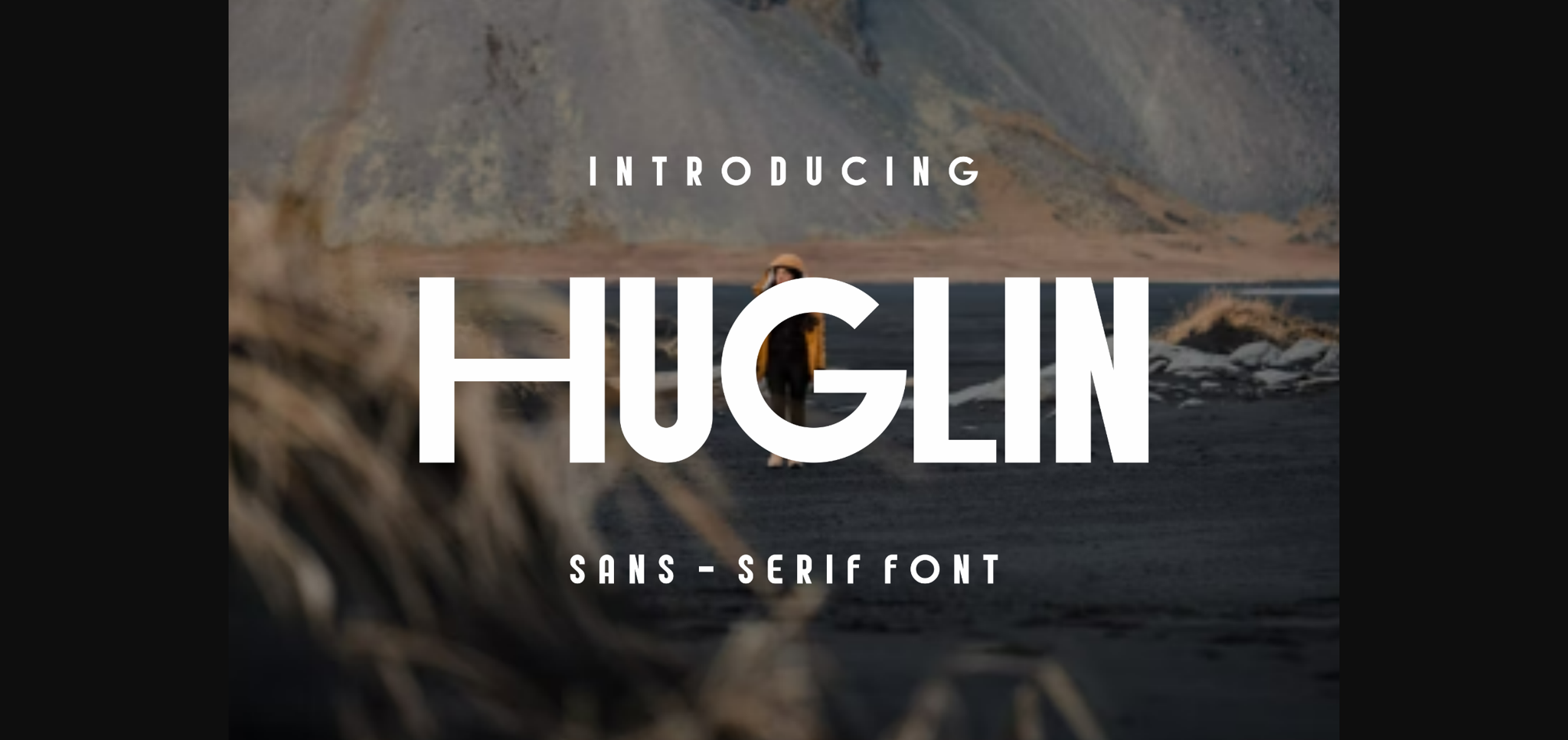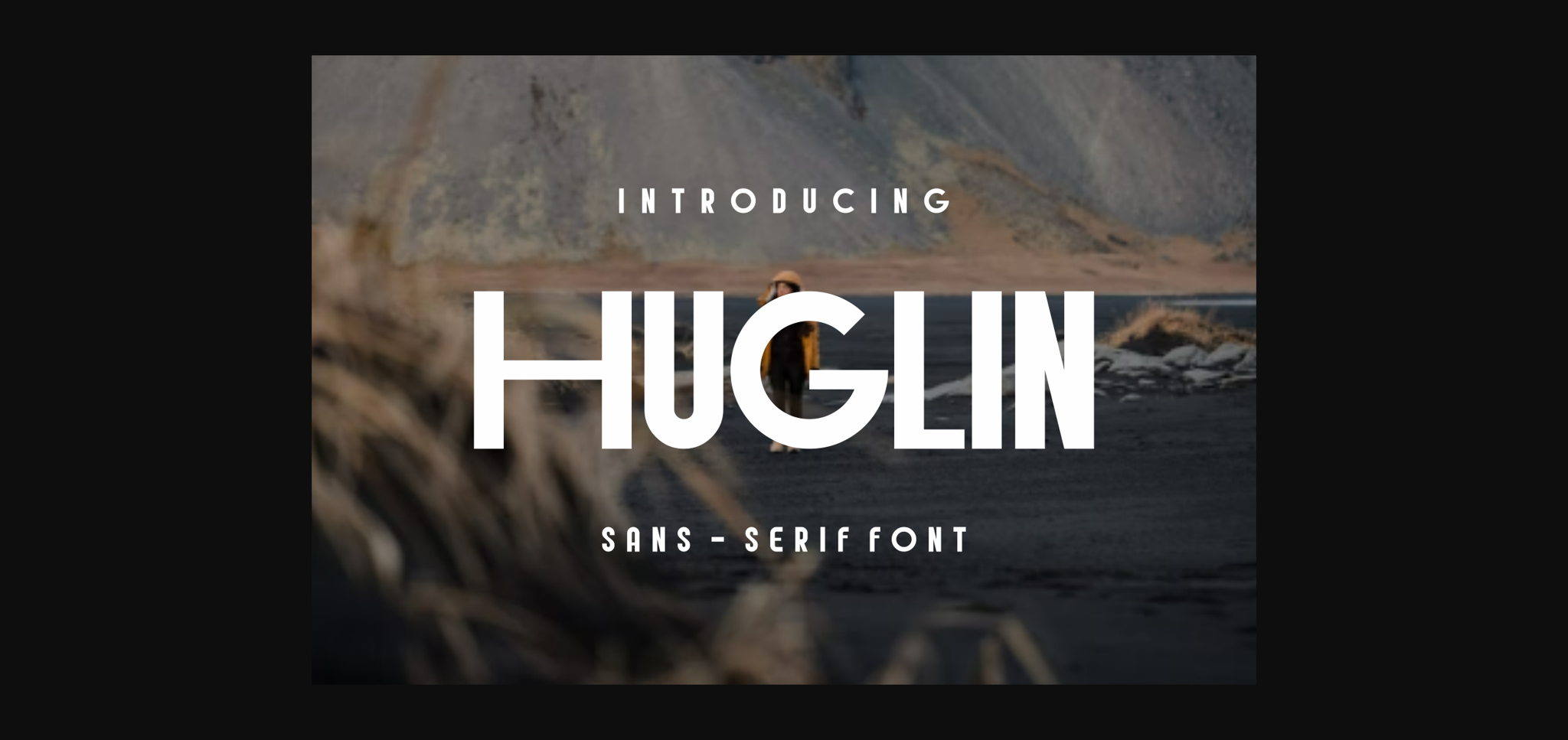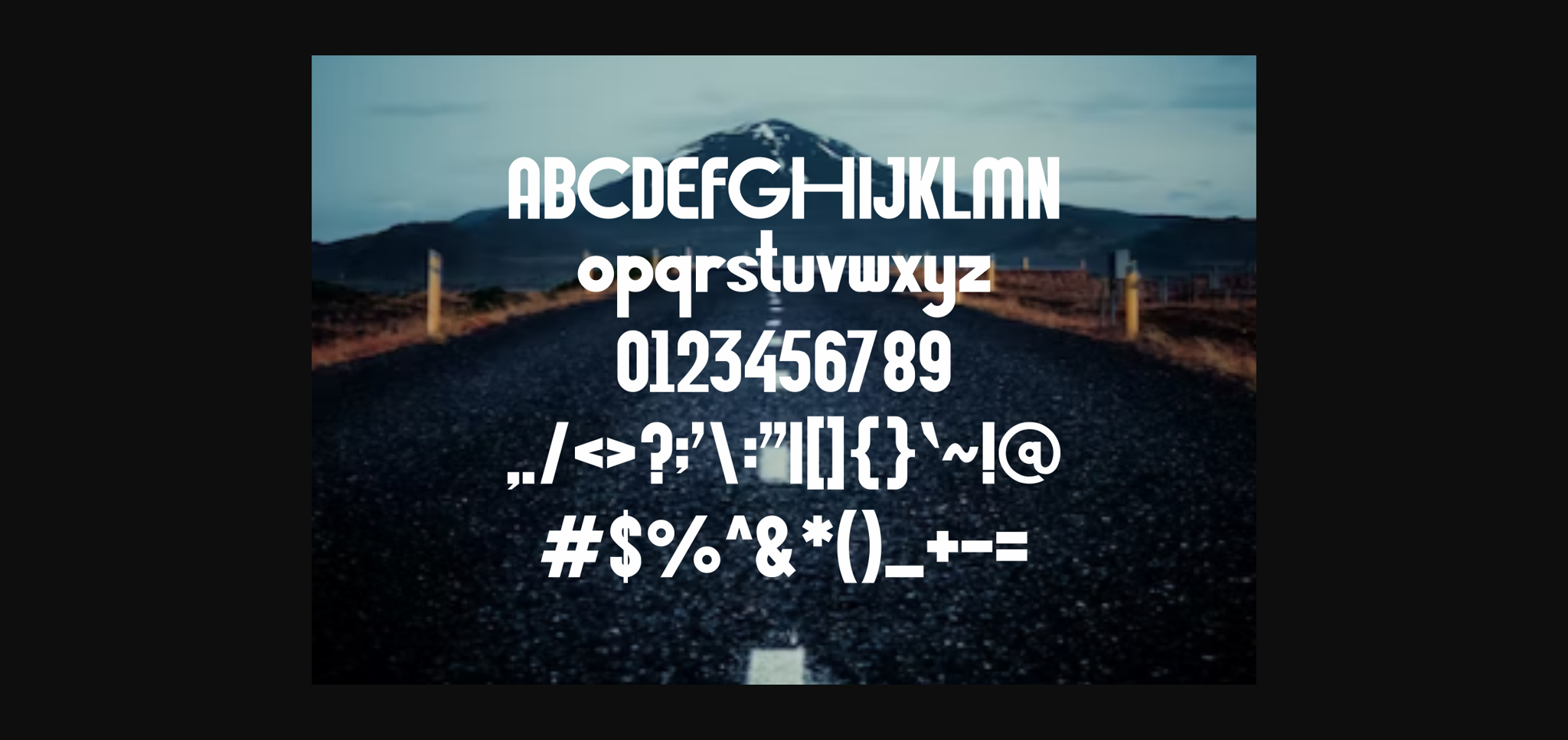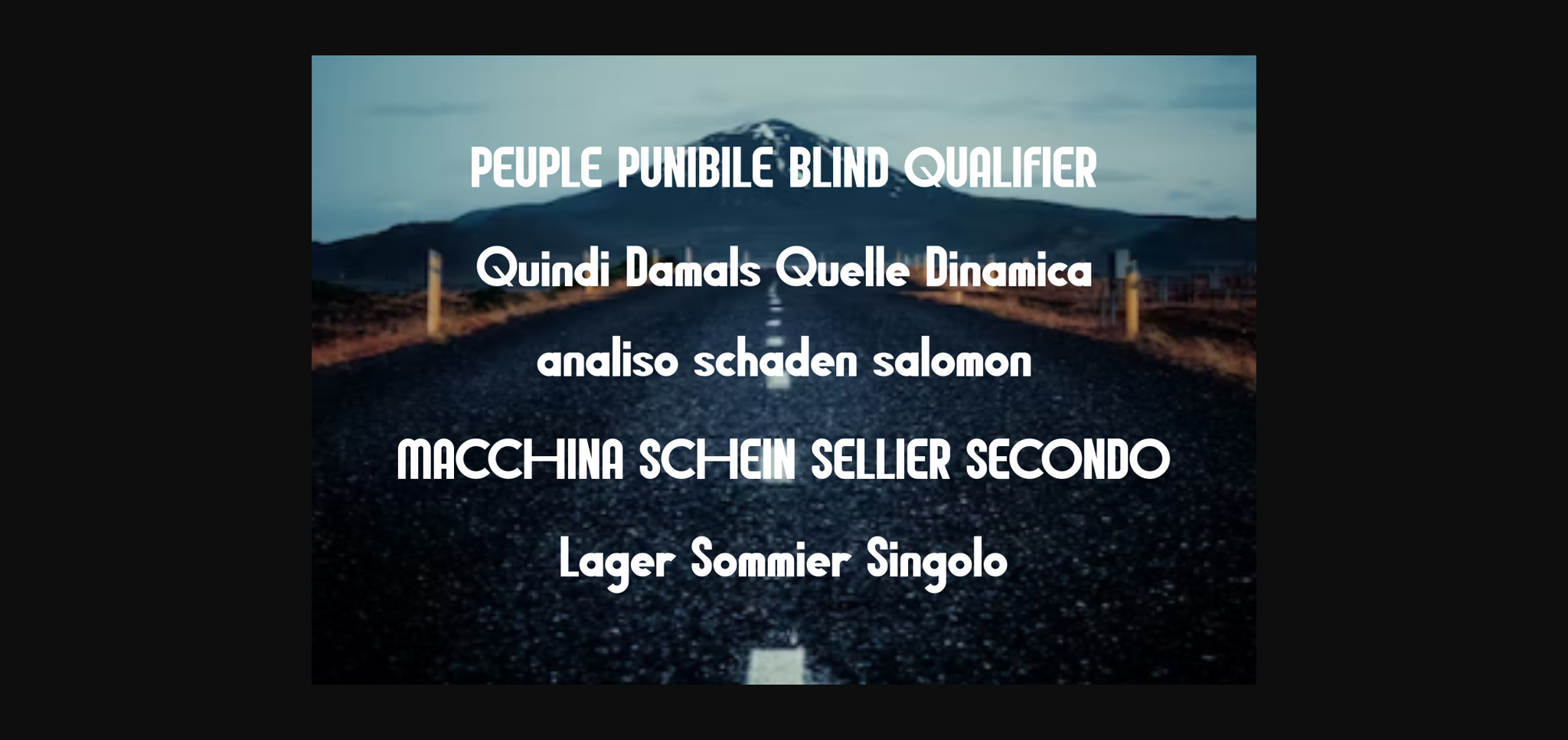
About Huglin Font
Huglin is a clear and bold sans serif font, perfectly suited on print/screen. It is perfect for branding, name cards, posters, logos, magazines, covers, banners, t-shirts, headers, or even large-scale artwork.